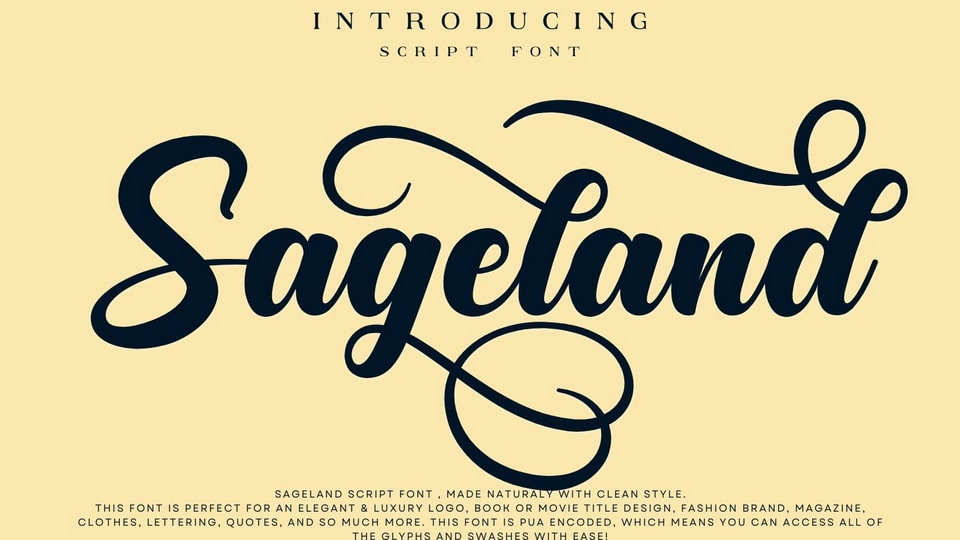
Download Sageland font, a lovely script typeface handwritten with a naturally brush and clean style, perfect for an elegant logo, book or movie title design.